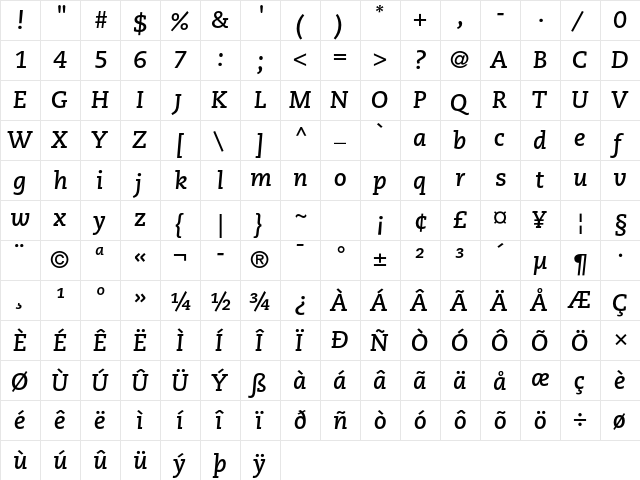
Caecilia LT Std 76 Bold Italic
| Designer | Peter Matthias Noordzij |
Design Context for Caecilia LT Std Typeface
Caecilia LT Std takes a measured approach to typography — its balanced proportions and neutral character make it a reliable workhorse for both digital and print work. The slanted form adds forward momentum and visual energy. Its bold stroke weight gives it real presence on the page.
Pro Tip: Use Caecilia LT Std for emphasis, pull quotes, and subheadings where its slanted energy can add rhythm to the layout.